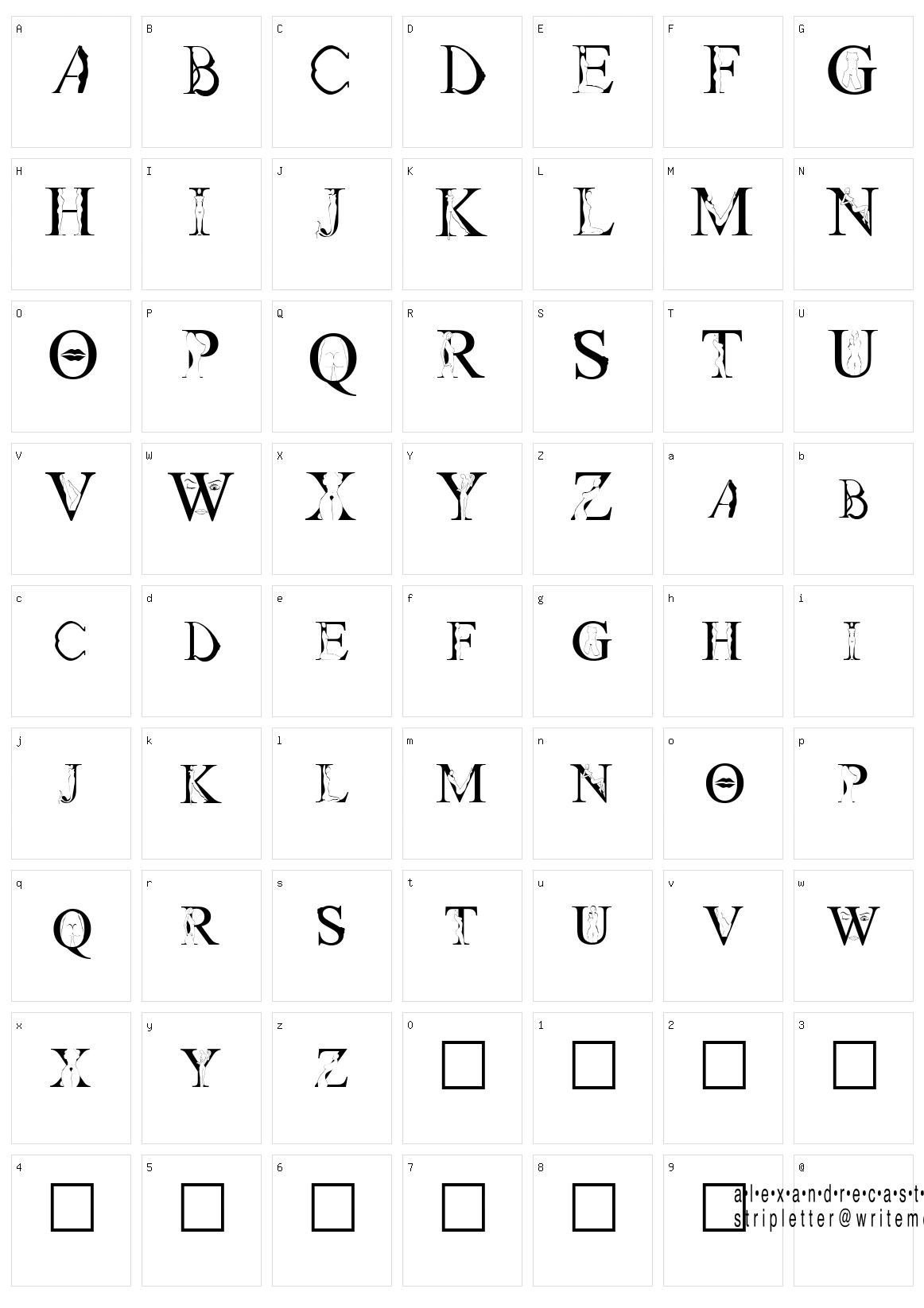
The free font Strip Letter 1 is carefully designed by Alexandre Castanet, showcasing a thoughtful balance of creativity and usability and falls under the Decorative font style. When you download the ZIP file, it contains only 38.27 KB of font files, making it lightweight and quick to download. Please review the license details below to understand permitted usage and distribution rights. If license information is not available, we recommend using this font for personal projects only or contacting the author directly for commercial usage permissions.
¥ STRIP LETTER ¥ est la premire version d'une police de caractres qui mlange le dessin du corps et de la lettre,
¥ STRIP LETTER ¥ is the first version of a font that mixes body figures and letters. It has been created by Alexandre CASTANET.